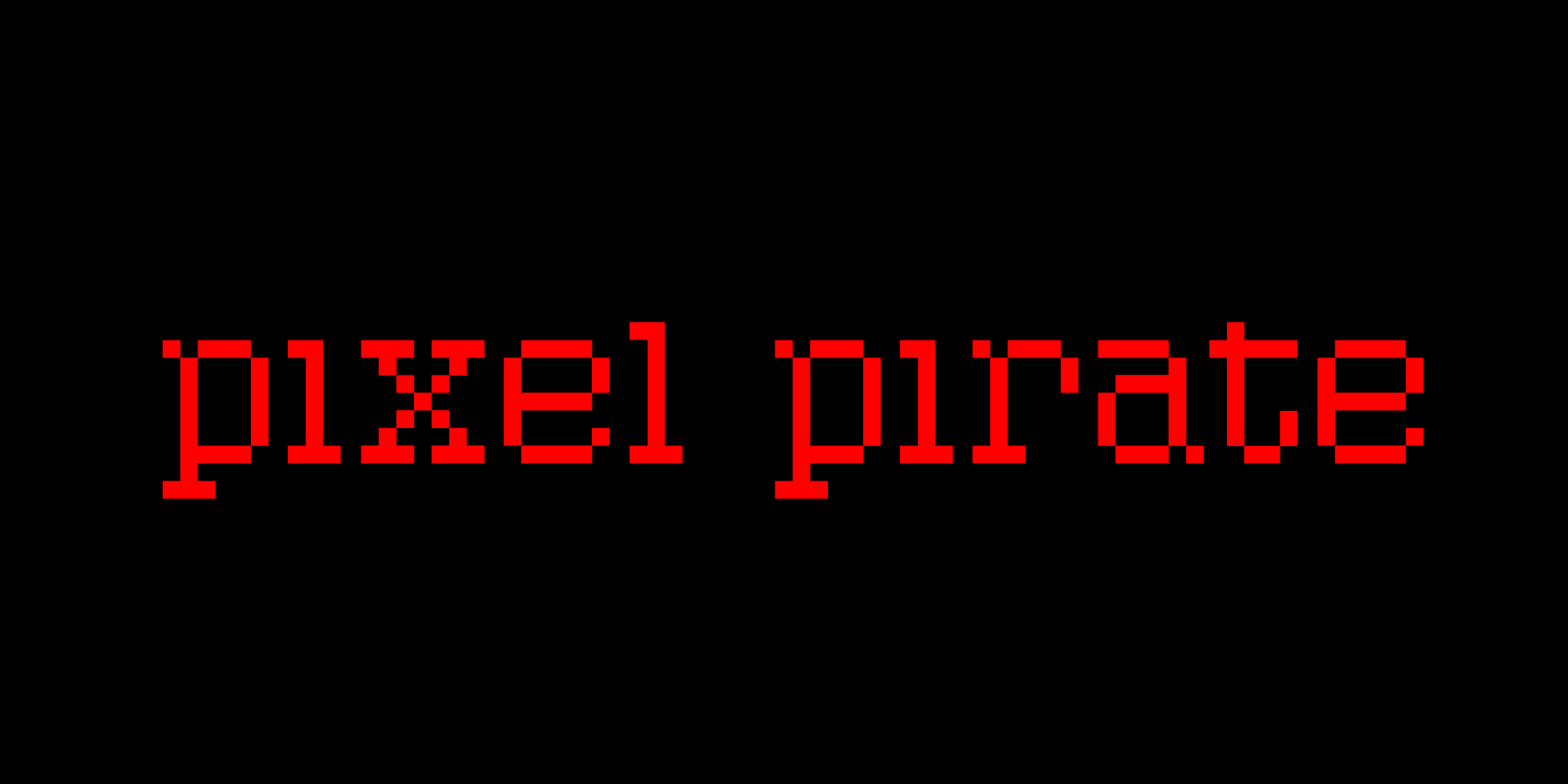
If Don King designed this font, he would describe it as, "An experiment in a combinatude of serified bitmapification!" But he did not design this font, and what I will say about this is that it is an experiment in the combination of a bitmap font with serifs. Its quirky, its fun, its downloadable by clicking on the links below!